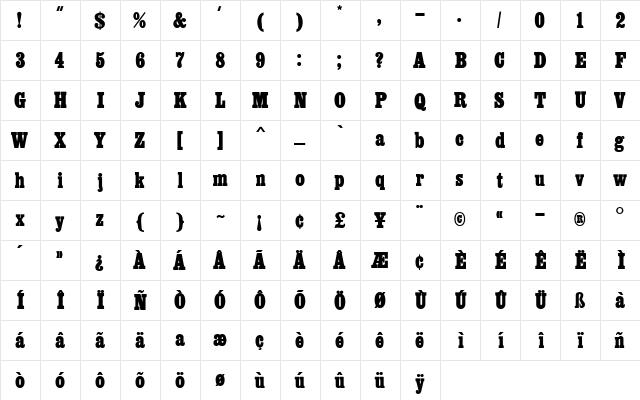
Egyptienne MN Condensed Bold Font Preview
| Style | Condensed Bold |
| Foundry | Mecanorma International . \ |
Design Context for Egyptienne MN Typeface
Egyptienne MN takes a measured approach to typography — its balanced proportions and neutral character make it a reliable workhorse for both digital and print work. The heavy weight commands attention and anchors typographic hierarchies. The condensed width makes it efficient for tight spaces without sacrificing legibility.